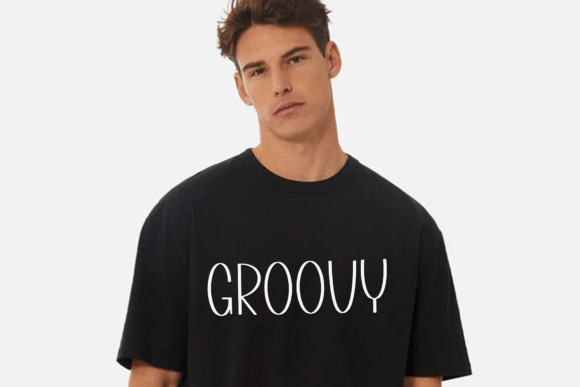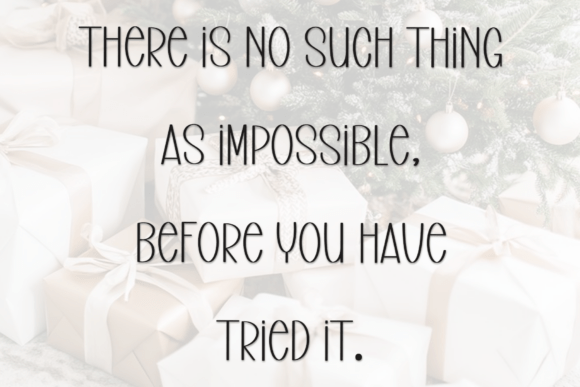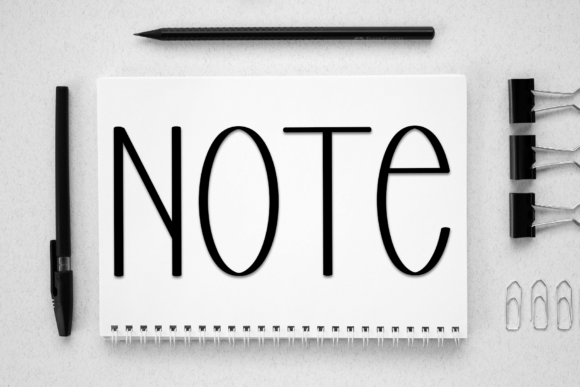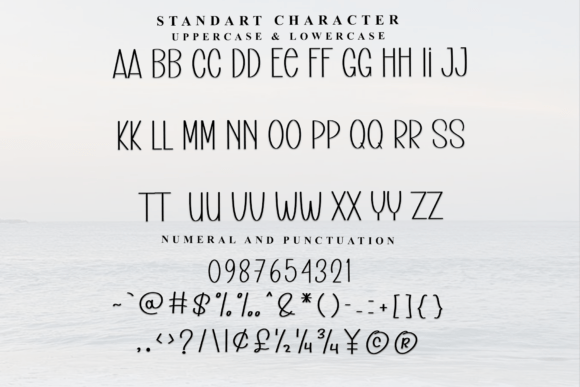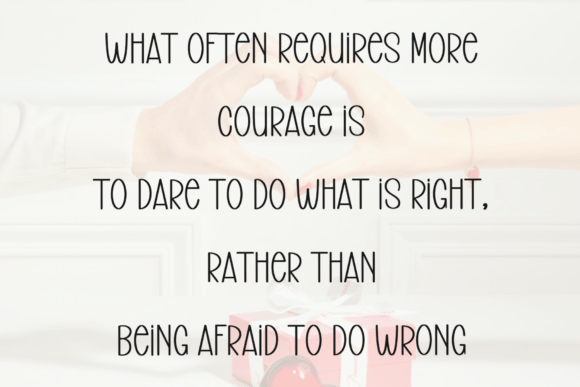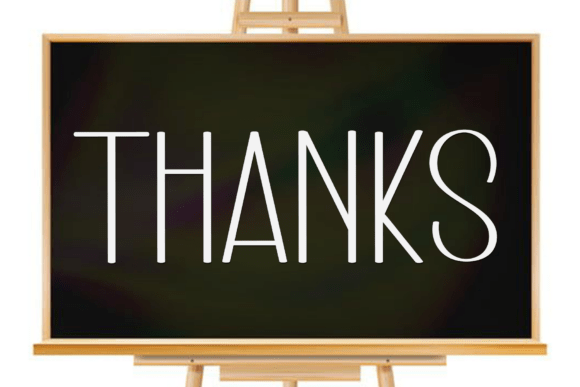
Introduction to Cookies Christmas Font Font
Fonts play a crucial role in design, and the Cookies Christmas Font font is a typeface that brings both character and versatility to any project. Whether you’re working on a branding project, a website, or a print design, the Cookies Christmas Font font offers a unique style that can elevate your work.
CookIes ChrIstmas is a sweet and friendly handwritten font.
The Cookies Christmas Font font is more than just a typeface – it’s a design tool that helps you communicate your message with style and clarity. Its unique character set and versatile design make it suitable for a wide range of applications, from elegant invitations to bold headlines.
With its carefully crafted letterforms and balanced proportions, the Cookies Christmas Font font ensures readability and visual appeal across all mediums.
What makes Cookies Christmas Font font special?
The Cookies Christmas Font font stands out with its unique design, exceptional readability, and versatility across various design applications.